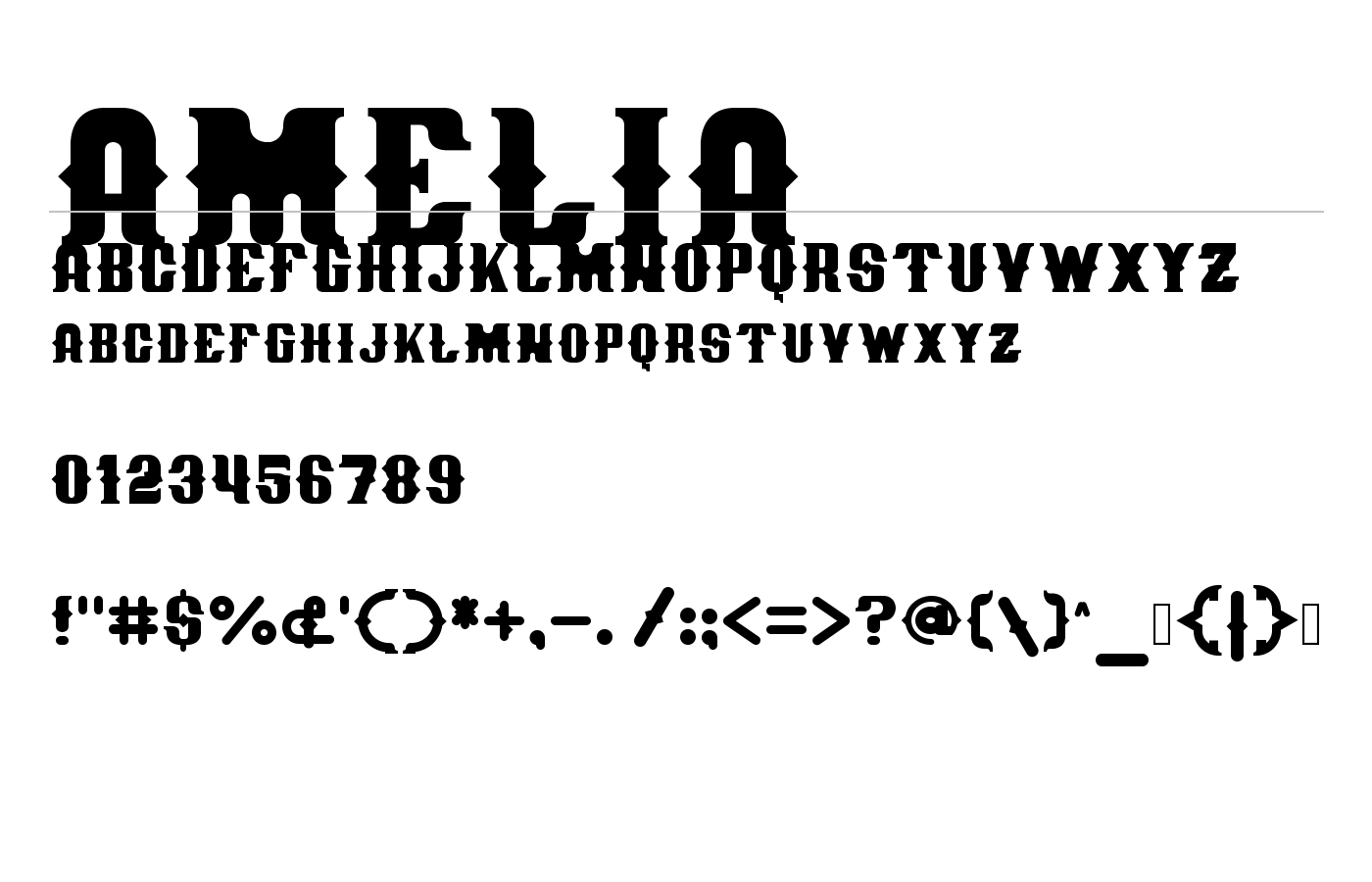
Amelia is a bold, condensed slab serif font with a strong vintage Western vibe, characterized by thick, blocky serifs and striking geometric cuts that add a rugged yet stylish flair. Its heavy weight and compact letterforms make it perfect for impactful headlines, logos, or branding that seek to convey a sense of strength and retro charm. This font shines in designs aiming for a bold, attention-grabbing statement with a classic, adventurous personality.
amelia Font
About amelia Font